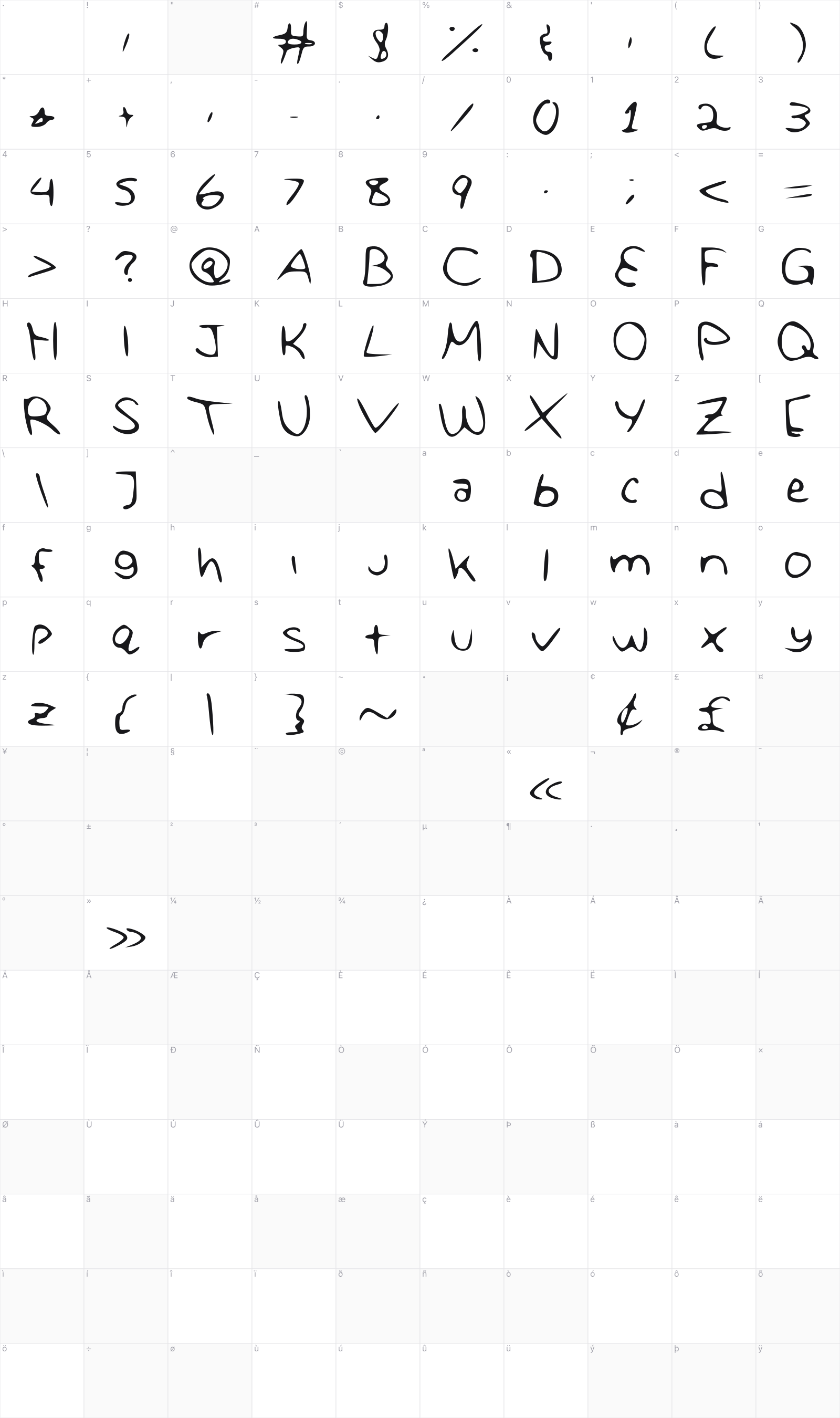
Missed It
by Annie Cresta
Missed It is a casual handwritten face from Annie Cresta that captures the uneven, slightly rushed quality of someone jotting something down with a felt-tip marker. The letterforms are irregular and playful, with inconsistent baselines and wobbly strokes that give it genuine personality. Best kept to display use, headlines, and short text blocks where its quirky charm reads as intentional rather than sloppy.